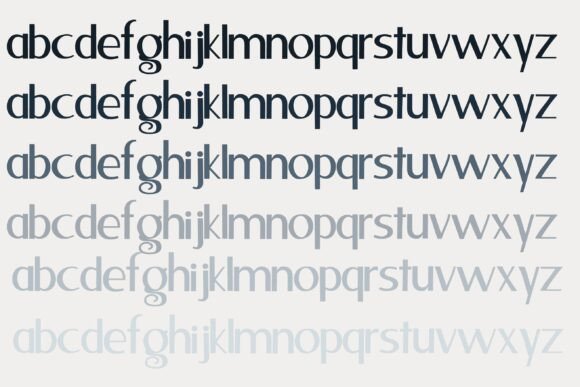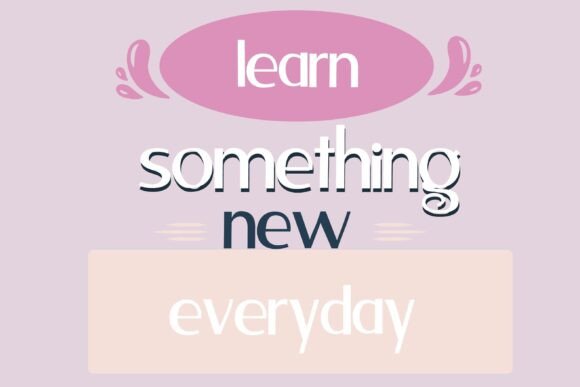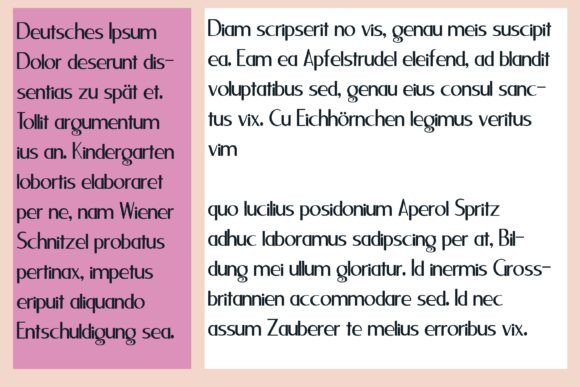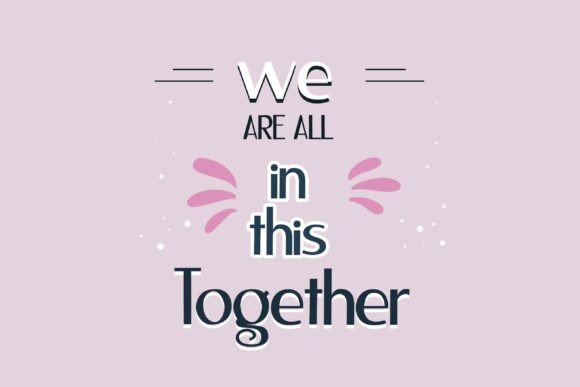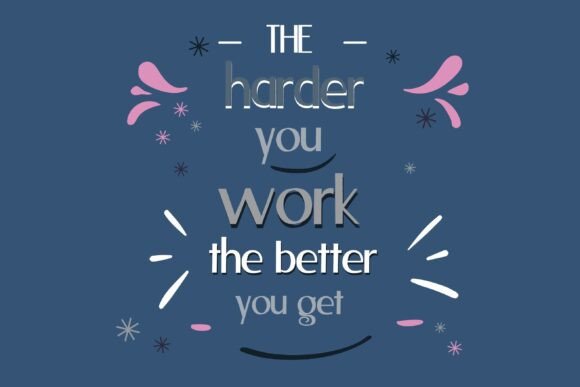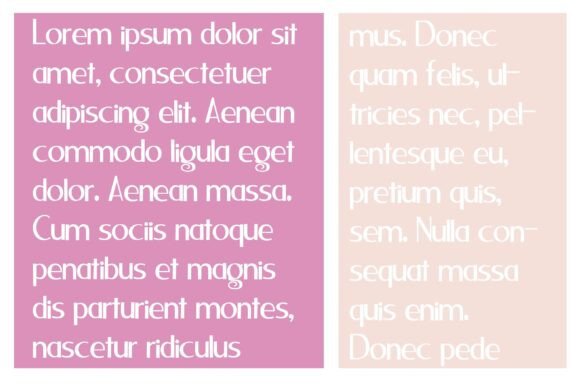
Introducing Chandlering Font: A Hand-Crafted Sans Serif for Modern Designs
In the world of typography, fonts play a crucial role in conveying the tone and personality of a design. For designers and crafters looking for a unique and modern touch, Chandlering Font is an excellent choice. This hand-crafted sans serif font is squatty, a bit modern, and perfect for a variety of creative projects.
A hand-crafted font is a typeface that is designed to look like it was written by hand. It is often used for invitations, greeting cards, and other items where a personal touch is desired. Handwritten fonts can be either formal or informal, and they can be used for a variety of purposes, from digital designs to print materials.
Characteristics of Chandlering Font
Chandlering Font is a sans serif font, which means it doesn’t have the small lines or flourishes at the ends of the letters. This gives it a clean and modern look that is perfect for designs where simplicity is key. The font is also squatty, with letters that are slightly wider than they are tall. This unique characteristic gives Chandlering Font a playful and friendly feel.
Uses of Chandlering Font
Chandlering Font is a versatile font that can be used for a variety of creative projects. Here are some ideas:
- Invitations and Greeting Cards: Chandlering Font is perfect for creating personalized invitations and greeting cards for special occasions like weddings, birthdays, and holidays.
- Digital Designs: The font’s modern and clean look makes it ideal for digital designs, such as social media graphics, blog posts, and website headers.
- Print Materials: Chandlering Font can be used for print materials like brochures, flyers, and posters.
- Crafting Projects: Crafters can use Chandlering Font to add a personal touch to their projects, such as scrapbooking, journaling, and card making.
Benefits of Using Chandlering Font
Using Chandlering Font in your designs offers several benefits:
- Unique and Modern Look: Chandlering Font’s hand-crafted design gives it a unique and modern look that sets it apart from other fonts.
- Easy to Read: The font’s clean and simple design makes it easy to read, even at small sizes.
- Versatile: Chandlering Font can be used for a variety of creative projects, from digital designs to print materials.
- Personal Touch: The font’s hand-crafted design adds a personal touch to your designs, making them more relatable and engaging.
Tips for Using Chandlering Font
Here are some tips for using Chandlering Font in your designs:
- Use it Sparingly: Chandlering Font is best used sparingly, as a headline or title font, to add a touch of personality to your design.
- Pair it with Other Fonts: Pair Chandlering Font with other fonts to create a unique and interesting contrast.
Chandlering Font is a unique and modern hand-crafted sans serif font that is perfect for designers and crafters looking to add a personal touch to their designs. Its clean and simple design makes it easy to read, and its versatility makes it suitable for a variety of creative projects. With its squatty and modern look, Chandlering Font is sure to add a touch of personality to your designs.